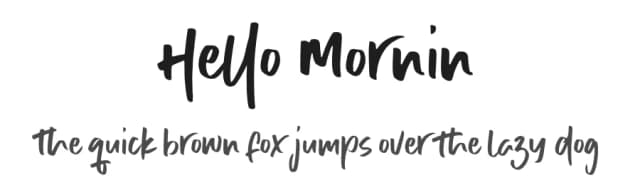
About Ato Font
Ato is a script & handwritten font designed by Muchammad Wahono Sapto Adi Saputro. It includes 113 glyphs, a regular weight, TTF (TrueType) format, and 111 languages. Ato is free to download; check the license details on this page before commercial use. Script & handwritten fonts like Ato work best for wedding invitations, greeting cards, signatures, and elegant branding.
Ato Font is a script font that shines as a display or heading face. Pair it with a clean sans-serif or serif font for body text β the contrast creates a clear hierarchy while the two styles stay balanced and easy to read.
Ato Font
by Muchammad Wahono Sapto Adi Saputro
Ato Font is a script handwritten typeface by Muchammad Wahono Sapto Adi Saputro, ideal for logos, invitations, branding, and creative projects.